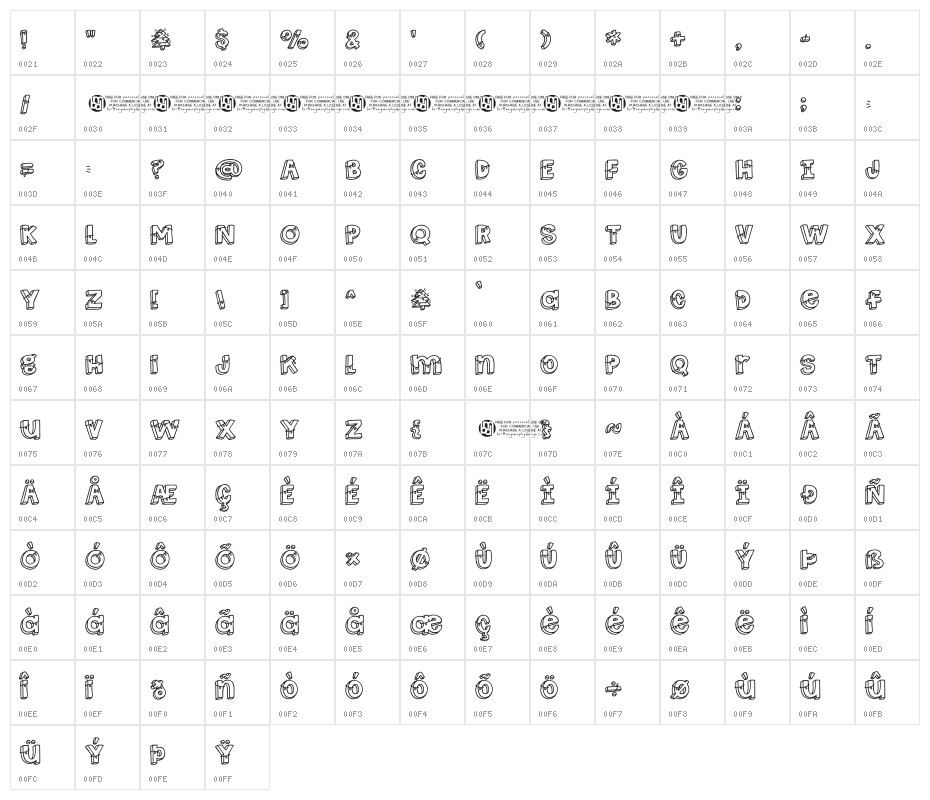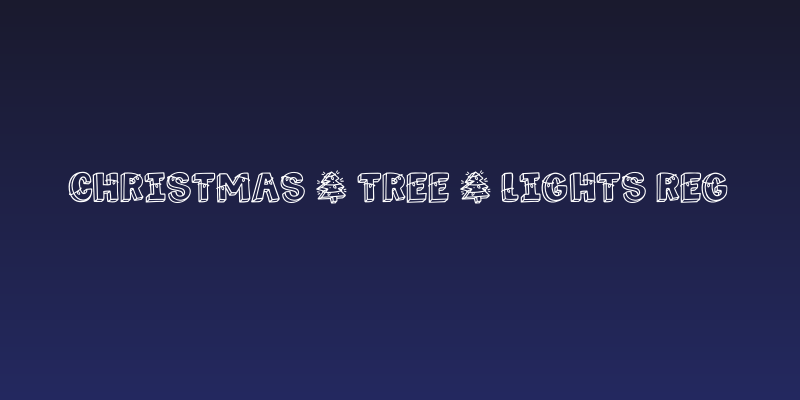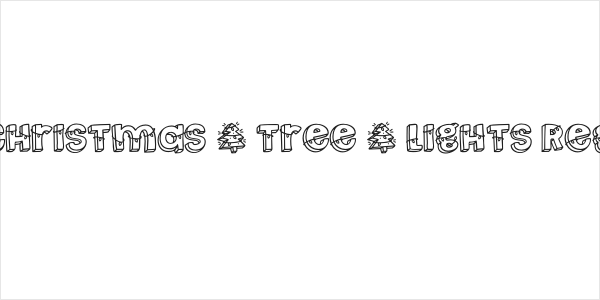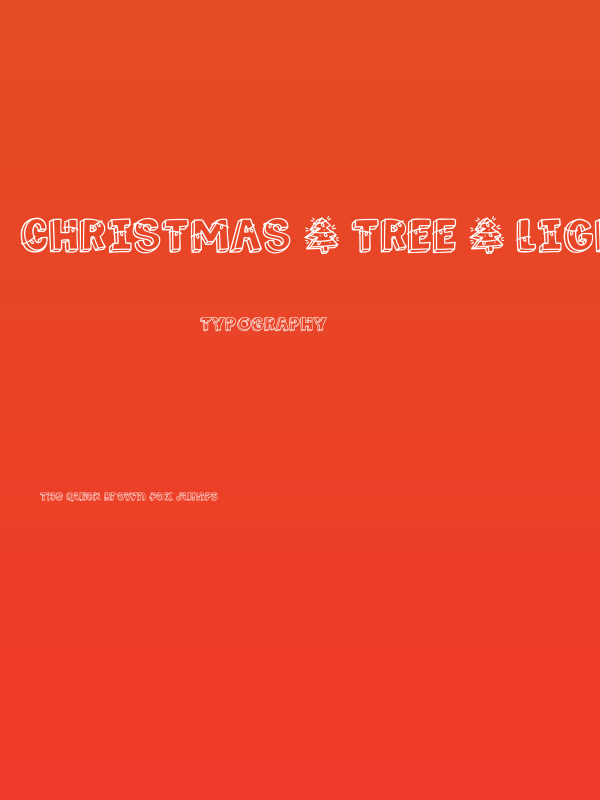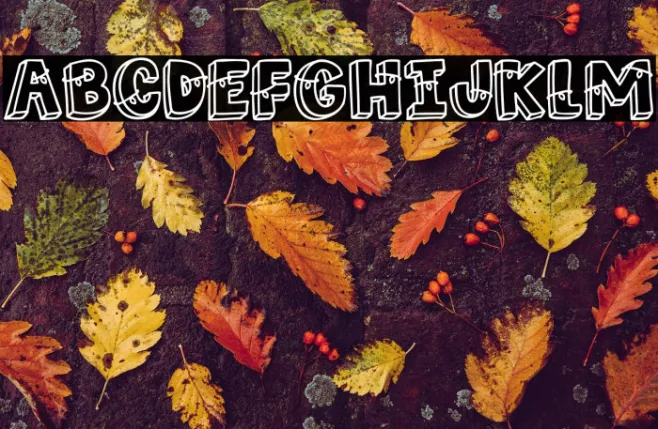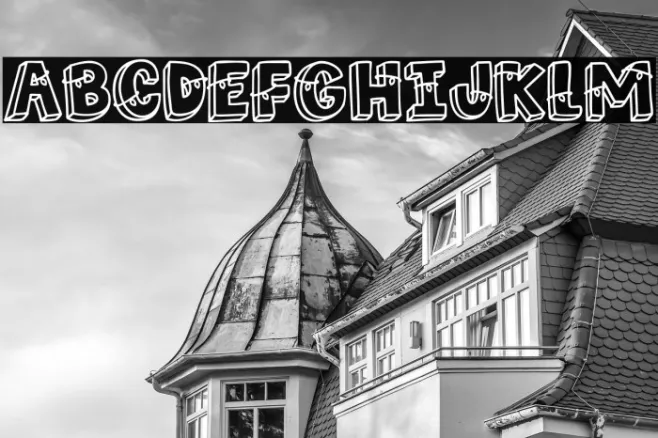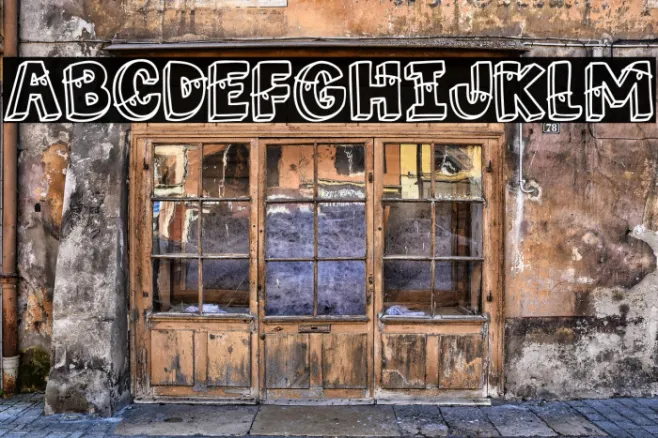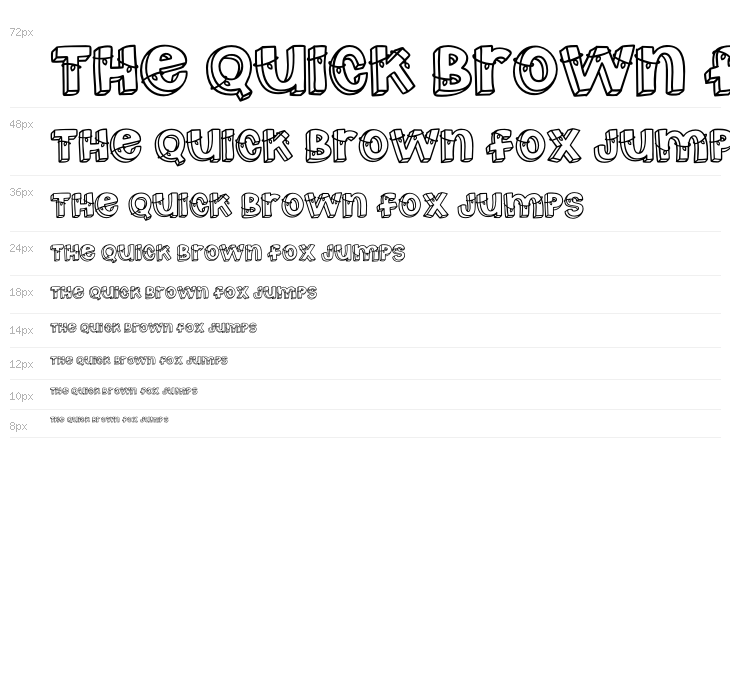
Christmas _ Tree _ Lights Reg Font
Christmas _ Tree _ Lights Reg Description
This playful and festive font features a decorative style reminiscent of holiday lights strung across each character. The letters are bold and outlined, with a whimsical touch that includes small light bulb details. The design is both eye-catching and cheerful, perfect for capturing the essence of holiday celebrations. The uppercase and lowercase letters maintain a consistent style, while the numbers and special characters are equally adorned with festive elements. This font brings a sense of joy and festivity, making it ideal for seasonal projects.
| Proposed Projects | Ideal for holiday greeting cards, festive banners, seasonal advertisements, and Christmas-themed invitations. |